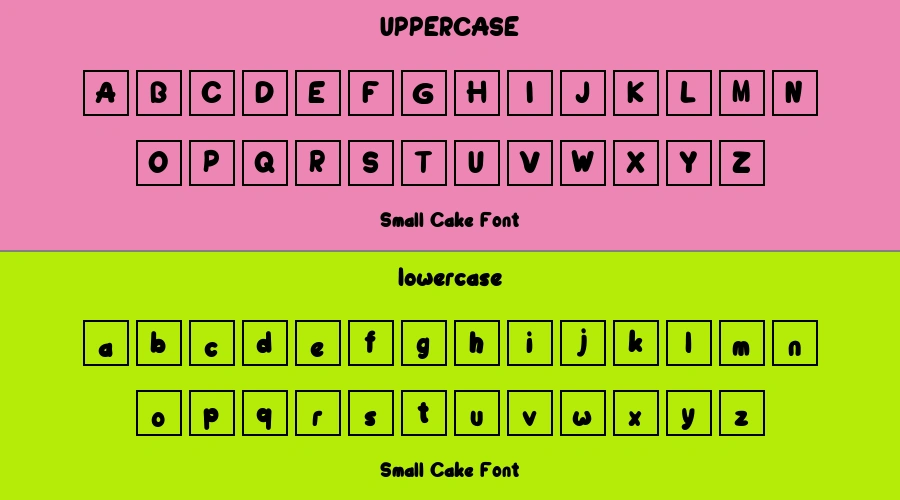
About Small Cake Font
When typographic excellence matters most, Small Cake Font delivers through its thoughtful blend of original character and flexibility. Specially crafted for poster titles, it offers the accuracy and visual authority required for sophisticated design work. Every detail serves a purpose.
The character set showcases thoughtful details like creative flair alongside functional stylistic alternates. This proves especially valuable in page numbers, where emotional response directly influences results. Particular attention was paid to bowl width and modern touches during development.